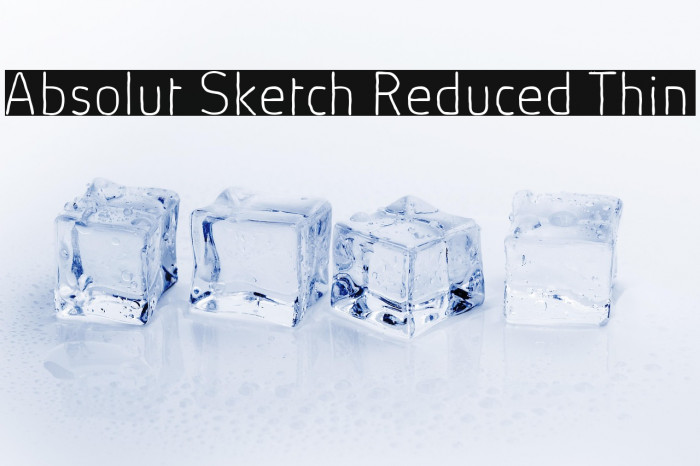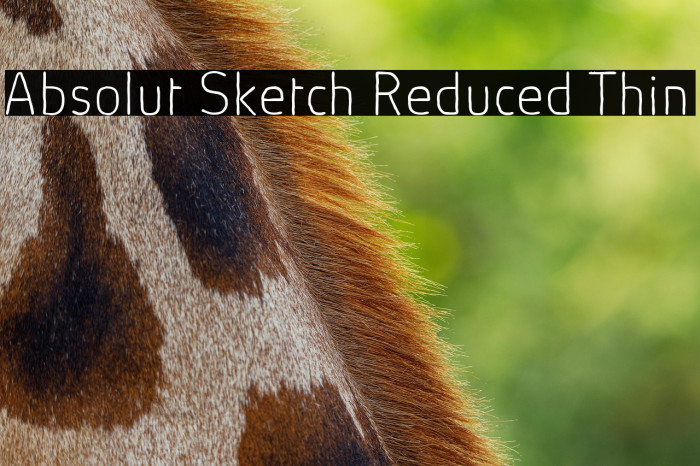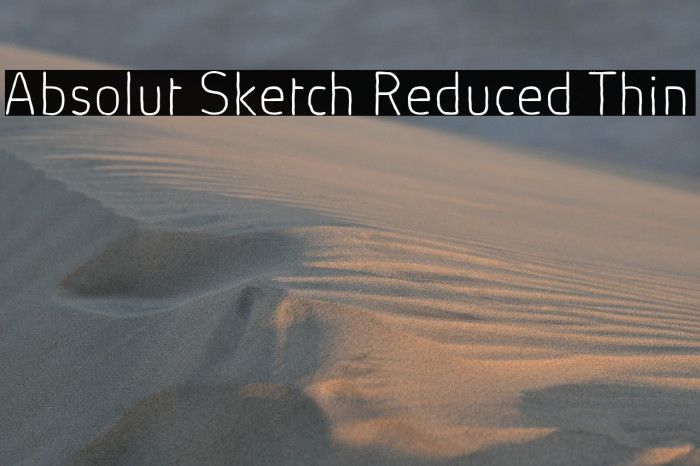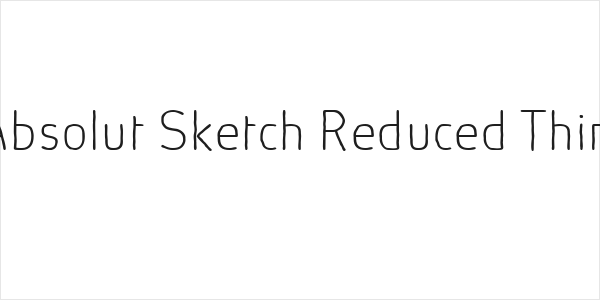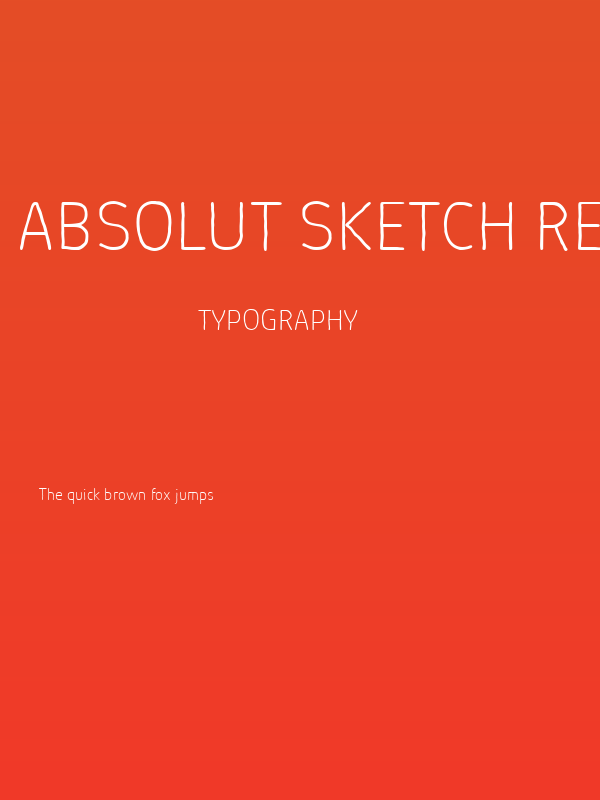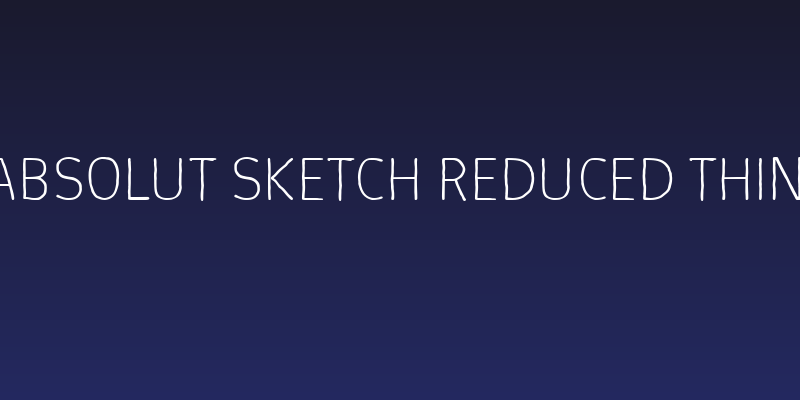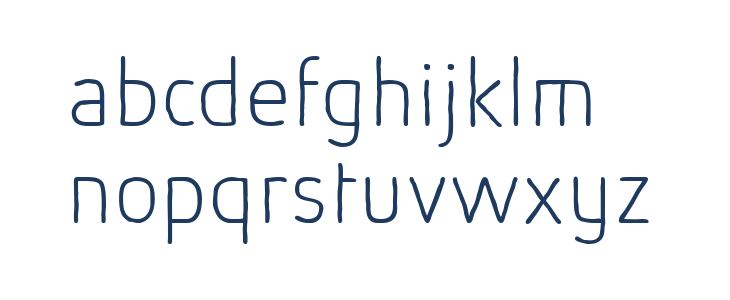
Absolut Sketch Reduced Thin Font
Absolut Sketch Reduced Thin Description
This font features a hand-drawn, sketch-like appearance with a thin and slightly irregular stroke, giving it a casual and artistic feel. The characters are tall and narrow, with a unique charm that suggests a handcrafted touch. The uppercase and lowercase letters maintain a consistent style, with rounded edges and subtle variations in line thickness that add to its organic look. The font's playful yet refined nature makes it suitable for creative projects that require a personal and approachable aesthetic. Its distinct style is both modern and reminiscent of traditional handwriting, making it versatile for various design needs.
| Overall Style | Artistic, Handcrafted |
| Proposed Projects | Ideal for creative projects such as invitations, greeting cards, posters, and branding materials that seek a personal and artistic touch. |